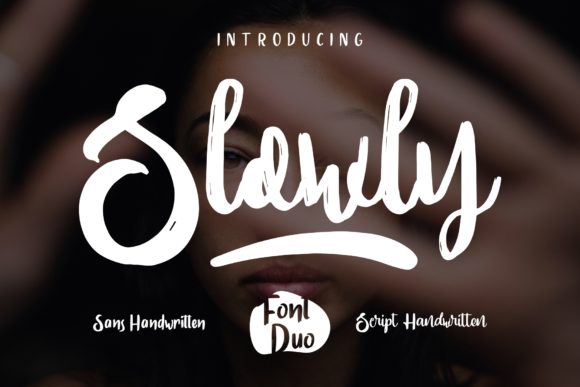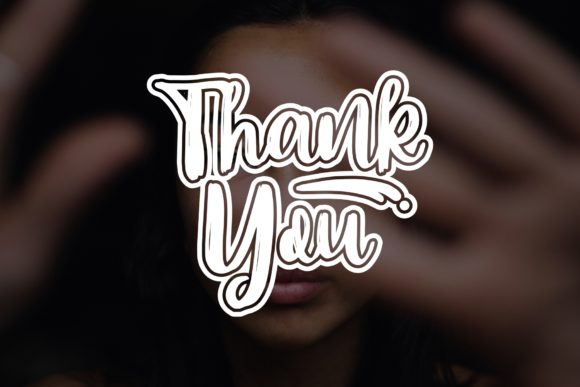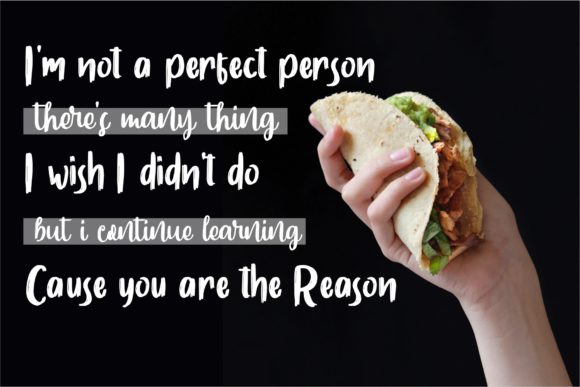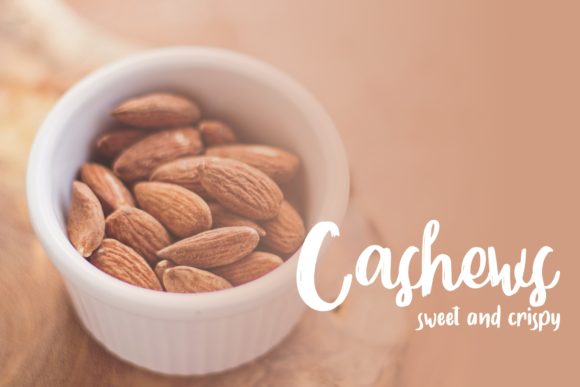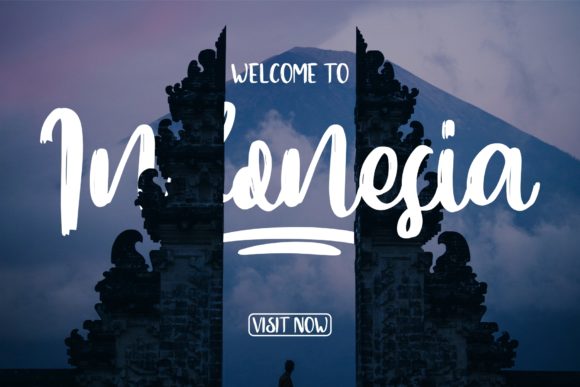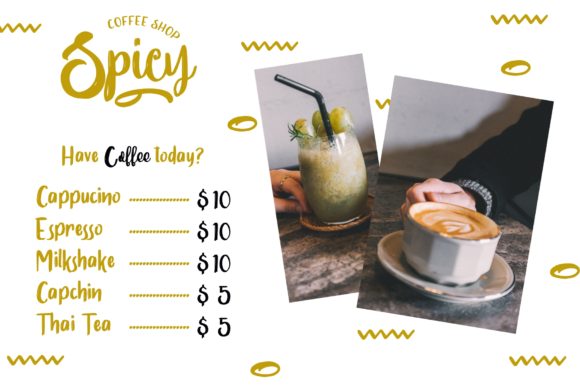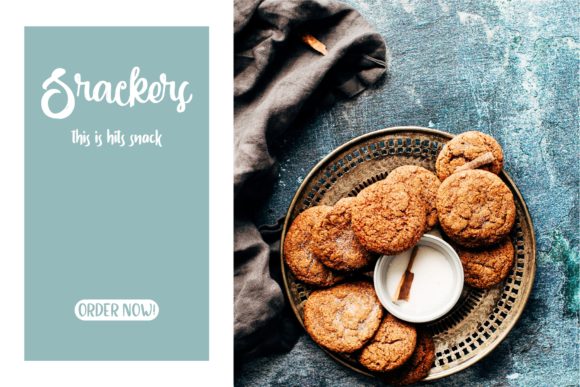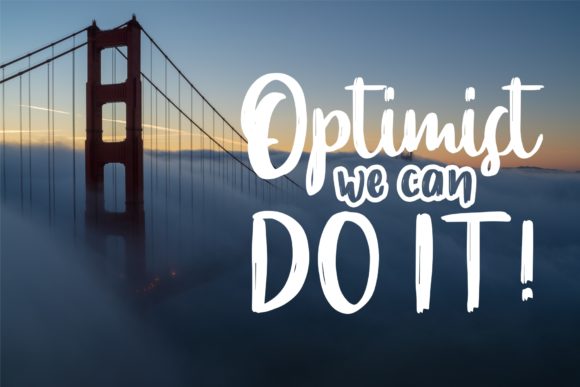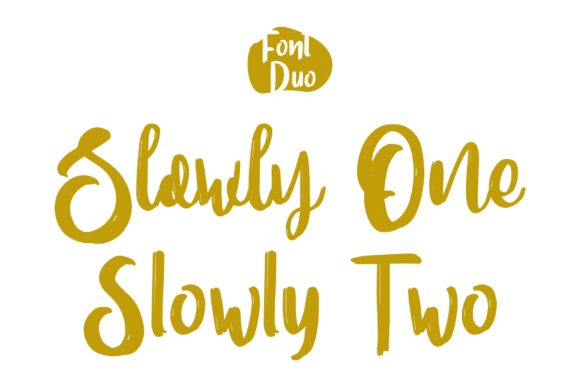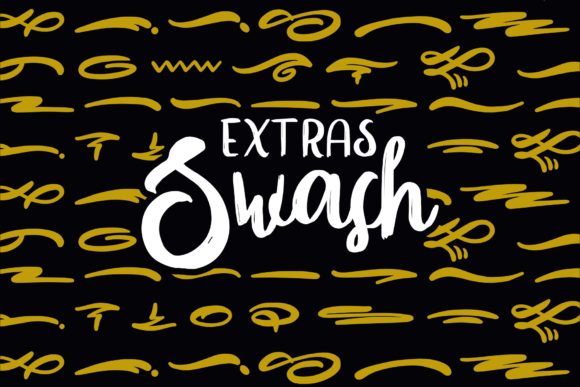
Slowly Duo Font
About Slowly Duo Font
The Slowly is a brand new brush duo. It includes a script and a sans version which gives you the opportunity to create multiple unique design in an instant. Also included is an amazing swash font which you can use to make any design stand out.
All included styles are perfect for projects brands, logos, product packaging, posters, invitations, greeting cards, news, blogs, and every other design which needs some personal charm